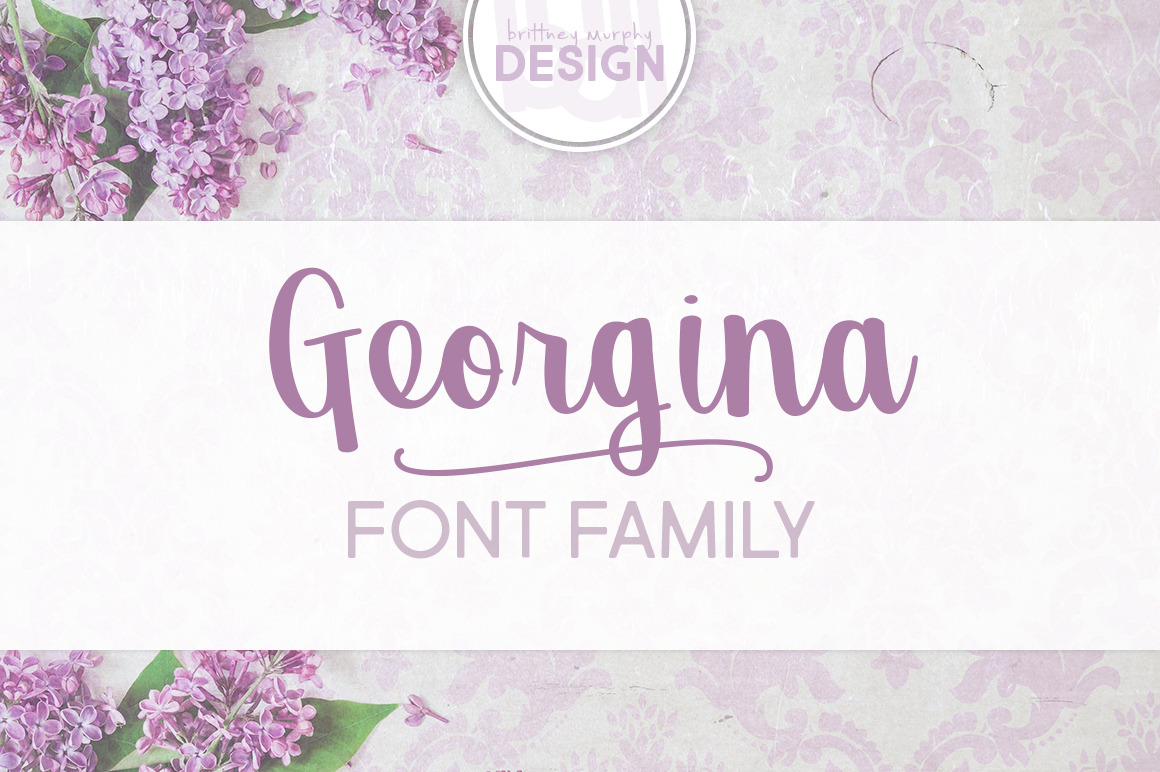
Georgina Font Family
Georgina is an adorably chunky script font. This font family also includes a thinner, light version. Both fonts contain 345 characters, including extended Latin characters.